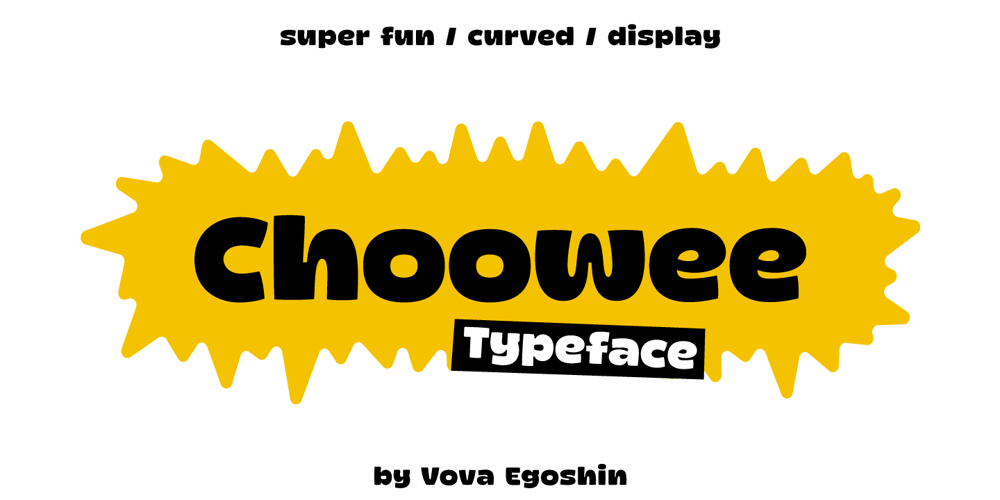
Choowee
Choowee font
Choowee Font Family was designed by Egoshin Vladimir and published by Vova Egoshin. Choowee contains 1 styles and family package options. Funky decorative display typeface with a curvy eye catching character. Choowee can solve many graphical problems. Features and alternates add personality and let you create unique logos, rad graphic identitys and stunning headlines! Package design for food or any kind of products. Posters or music covers. Prints on sweatshirts or t-shirts. Children’s book-covers or comics. Features: ligatures, alternates, case sensitive punctuation. Support: cyrillic, cyrillic extended, latin, latin extended… 1000+ glyphs! Have fun!